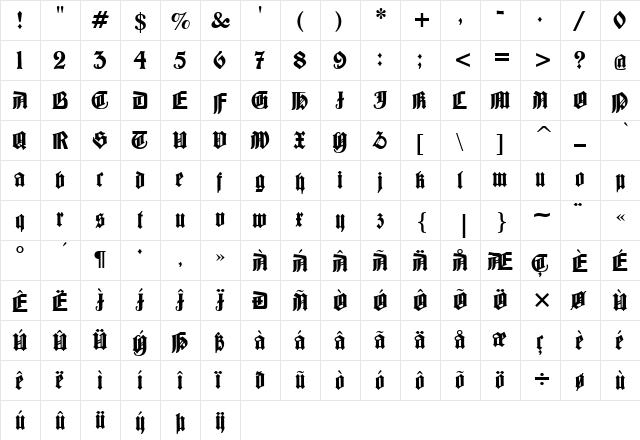
Barloesius Schrift Regular
| Foundry | Peter Wiegel |
| Designer | Peter Wiegel |
Design Context for Barloesius Schrift Typeface
Barloesius Schrift takes a measured approach to typography — its balanced proportions and neutral character make it a reliable workhorse for both digital and print work.